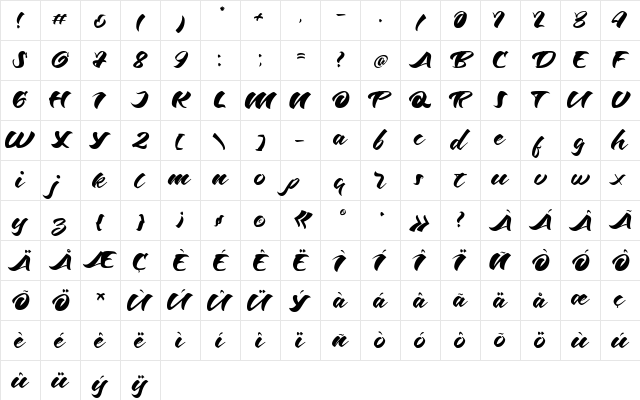
Odenson Regular
| Foundry | Typotopia |
| Designer | Typotopia |
Design Context for Odenson Typeface
Odenson is a composed and adaptable typeface that performs quietly and consistently across a wide range of design contexts.